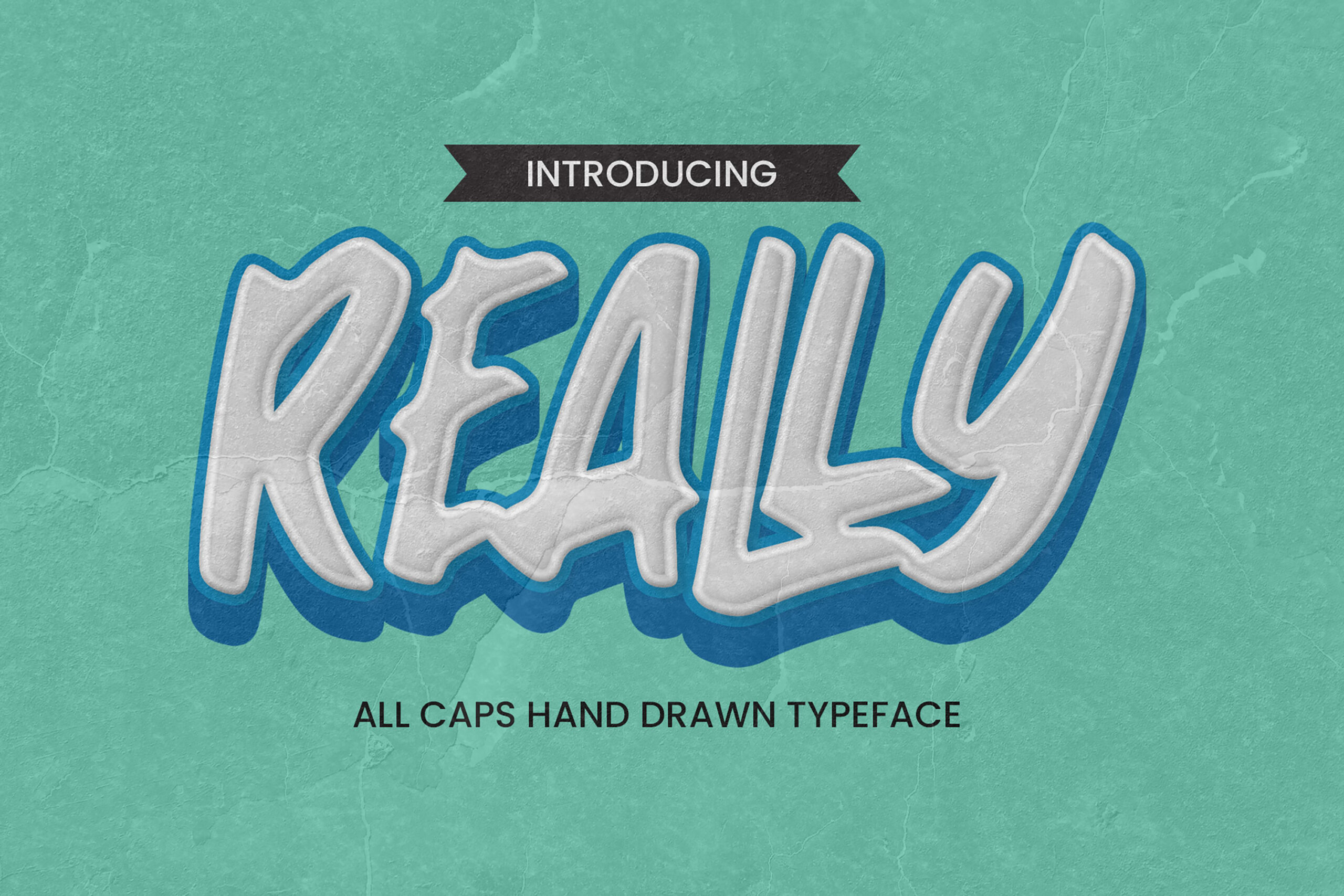
REALLY – All Caps Hand Drawn Typeface modern style and dramatic movement that is written casually and quickly.
The best for labels, poster, project designs look modern, authentic and strong. It’s perfect for labels, quotes, posters, DIY projects, branding, packaging, greeting cards, websites, photography overlays, signs, scrapbooking, tags and so much more! That is why REALLY has a textured, and cool characteristic more natural look. You can activate Ligatures glyphs OpenType panel.